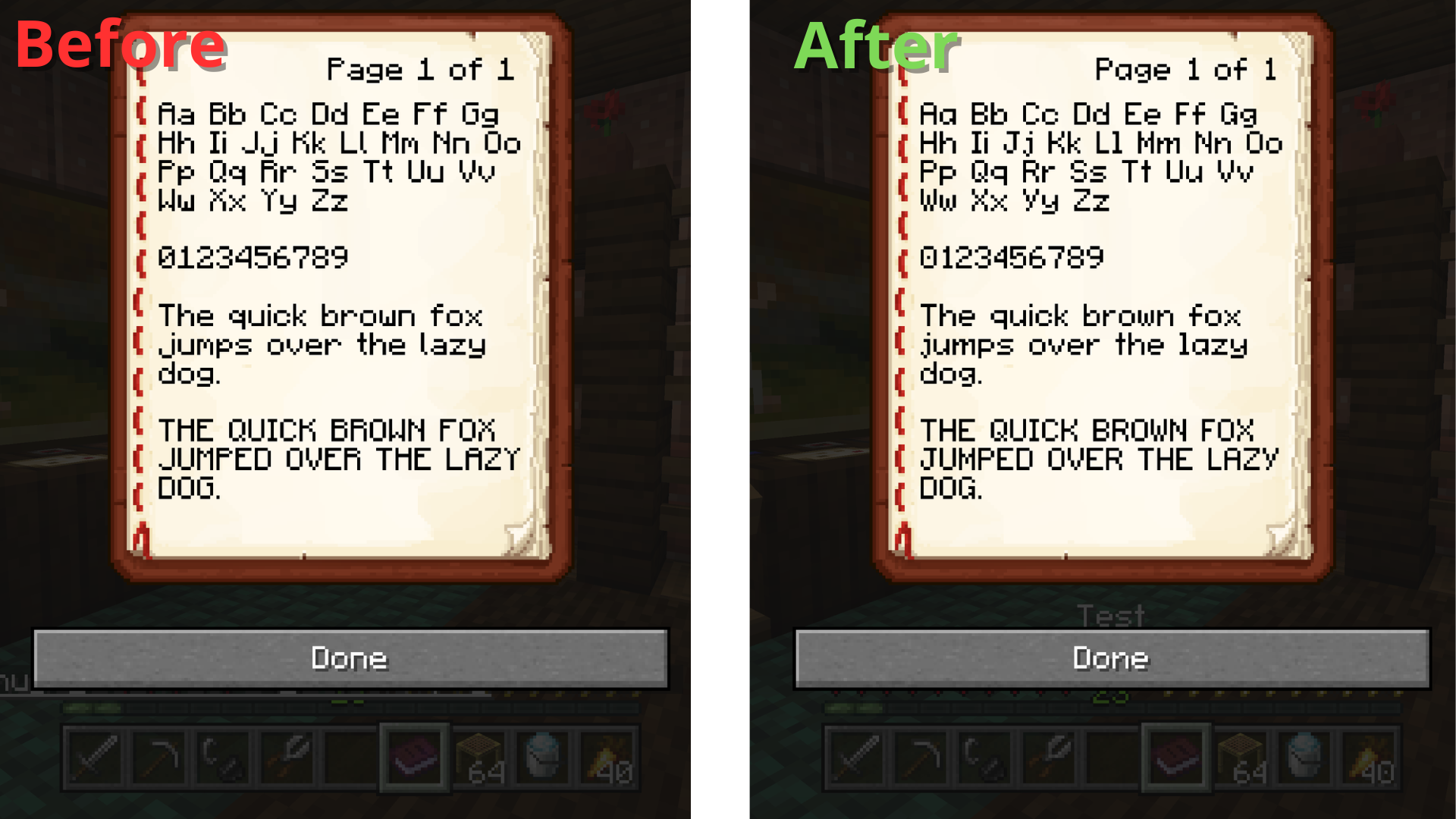
Ginkgo Font - A Cleaner, Vanilla-Like Font for Minecraft
Enhance your Minecraft experience with Ginkgo Font, a resource pack that brings a cleaner, easier to read version of the classic vanilla font.